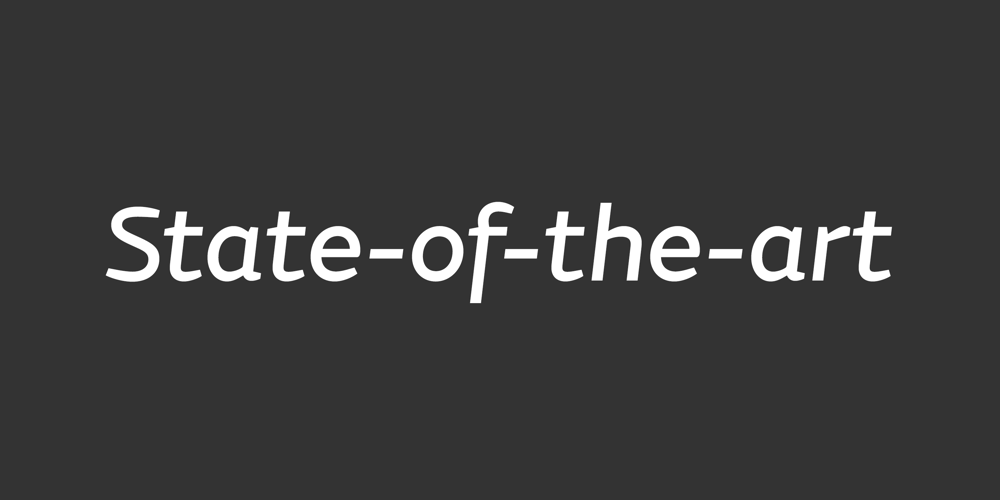
FS Emeric
FS Emeric font
FS Emeric Font Family was designed by Phil Garnham and published by Fontsmith. FS Emeric contains 22 styles and family package options. Right now!FS Emeric reconciles a pair of seemingly opposing approaches: the systematic but chilly functionalism of early modernist typography, trapped in time, and a warmer, more emotional, more optimistic spirit.What Fontsmith created was something that marries precision with expression, geometry with movement, functionality with humanity. FS Emeric has a sharp, kinetic edge that cuts across design disciplines – graphic, fashion, product, automotive. It’s about what’s happening right now. Contemporary, optimistic, distinctive – a classic working sans serif.AppetiteDiscussions with some of Fontsmith’s design studio clients had revealed an appetite for a new kind of typeface that could express mid-century modernist principles in a fresh, contemporary voice.As he crafted the letterforms that would form FS Emeric, Phil Garnham was guided by two central ideas. First, there was Jan Tschichold’s contention that a good letter is “one that expresses itself, speaking with the utmost distinctiveness and clarity”. Second was a belief that a font can be personally expressive without compromising its functionality. These provided the fuel that drove the project to its conclusion. PostersTo mark the launch of FS Emeric, Fontsmith asked 11 eminent design studios from around the world – the likes of Pentagram, Studio Dumbar, Bibliotheque, Non-Format and Build – to create a limited edition A1 poster.Each poster celebrated a different weight of FS Emeric, and just 50 of each were screen-printed by Dan Mather onto 175gsm Colorplan stock.“We gave away a randomly selected poster every time two or more weights of the FS Emeric were purchased,” says Phil Garnham. “They’ve now become somewhat of a collector’s item in their own right.”SuperfamilyIn the spirit of Univers, the original font superfamily, FS Emeric now comprises 22 Roman and italic typefaces overall, making it one of the most versatile and functional modern fonts across all kinds of media, as well as one of the most distinctive.